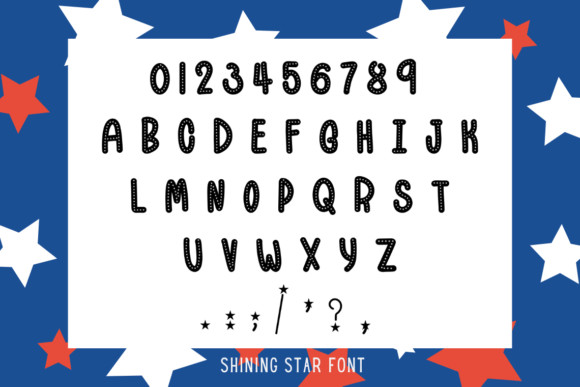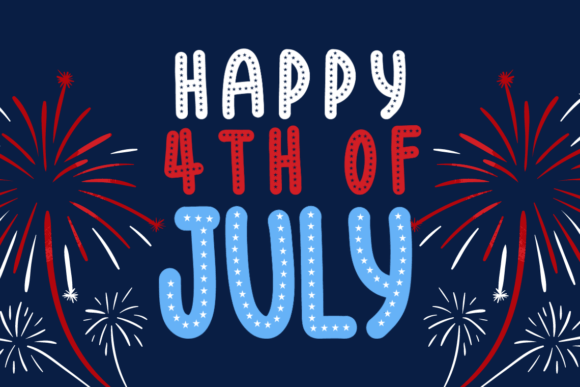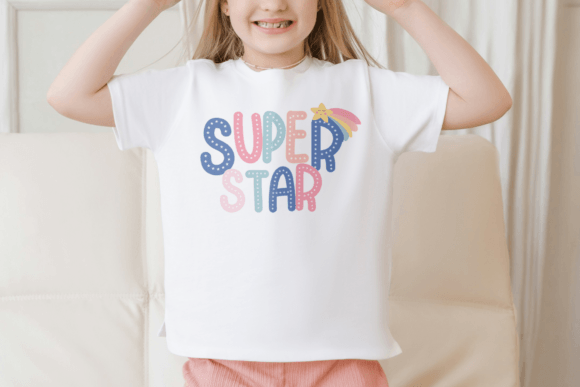
Introduction to Shining Star Font
Have you ever stared at a blank page, trying to find the perfect font to bring your creative project to life? The struggle is real, but we’ve got you covered. Introducing the “Shining Star Font” – a stunning handwritten typeface that will make your designs shine brighter than ever.
As a designer, you know how important it is to have a reliable design resource at your fingertips. That’s why we’re excited to share this high-quality font with you, perfect for creating stunning posters, elegant invitations, and a variety of everyday creative endeavors. With its graceful strokes and timeless style, “Shining Star Font” is an exceptional choice for greeting cards, digital art, and more.
Key Features of Shining Star Font
- Unique and Creative Design: The Shining Star Font is a one-of-a-kind design resource that can add a touch of magic to any creative project.
- Transparent Background: The font has a transparent background, allowing designers to easily overlay it on any image or background without any distractions.
- Customizable: The font is highly customizable, allowing designers to adjust the size, color, and style to fit their specific design needs.
- Perfect for Various Design Projects: The Shining Star Font is ideal for use in various design projects, including logos, branding, packaging, and digital art.
Honest Review: Shining Star Font
I recently stumbled upon the Shining Star Font, and I must say, it’s been a game-changer for my creative projects. As a designer, I’m always on the lookout for high-quality design resources that can elevate my work.
- ✨ High-quality vectors that can be easily scaled without losing any resolution.
- ✨ A transparent background option that allows for seamless integration with any design.
- ✨ A wide range of font styles that can be used for various creative projects.
- ⚠️ Limited customization options, which may not be ideal for designers who want to add their own twist.
- ⚠️ The font may not be suitable for projects that require a lot of text, as it can get cluttered quickly.
Overall, I’m impressed with the Shining Star Font. It’s a great design resource that can add a touch of elegance to any creative project. While it may have some limitations, it’s definitely worth considering for your next design project.
Tips for Getting the Most Out of Shining Star Font
To get the most out of the Shining Star Font, experiment with different font sizes, colors, and combinations. You can also use the font in conjunction with other design elements to create a unique and eye-catching design.
Common Use Cases for Shining Star Font
The Shining Star Font is perfect for a variety of creative projects, including invitations, posters, and social media graphics. It’s also great for use in branding and marketing materials, such as business cards and logos.